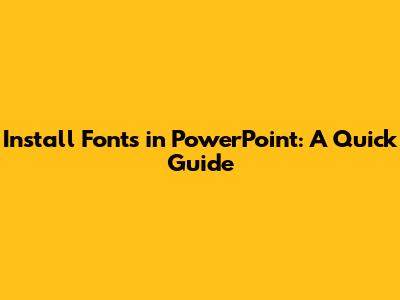
Hey guys! Ever felt like your PowerPoint presentations are missing that special something? Maybe it's the fonts! Using the same old fonts can make your slides look a bit bland. But don't worry, adding new fonts to PowerPoint is easier than you might think. This guide will walk you through everything you need to know to install fonts and make your presentations pop! Whether you're aiming for a sleek, professional look or a fun, creative vibe, the right fonts can make all the difference. Let's dive in and explore how to get those cool new fonts into your PowerPoint arsenal. Trust me, once you start experimenting with different typefaces, you'll wonder how you ever managed without them!
Why Install New Fonts in PowerPoint?
So, why bother installing new fonts in PowerPoint anyway? Well, think of fonts as the clothes your words wear. A professional font can add credibility to a business presentation, while a playful font can liven up a classroom slideshow. The default fonts in PowerPoint are fine, but they can be a bit…ordinary. By installing new fonts, you open up a whole world of possibilities. You can match your fonts to your brand, create a unique visual style, and keep your audience engaged. Plus, using different fonts can help you emphasize key points and create a visual hierarchy on your slides. Imagine using a bold, striking font for your headlines and a clean, readable font for your body text. Suddenly, your presentation looks polished and professional. And let's be honest, who doesn't want their presentations to look amazing? Installing new fonts is a simple way to take your presentations from blah to brilliant. You can find fonts that perfectly match the tone and style of your content, whether you're presenting financial data or sharing vacation photos. The right font can make your message more impactful and memorable. So, if you're ready to take your PowerPoint game to the next level, installing new fonts is the way to go!
Finding Fonts
Before you can install new fonts, you need to find them! Luckily, the internet is packed with amazing fonts, both free and paid. A great place to start is Google Fonts. It offers a huge selection of open-source fonts that you can download and use for free. Another popular option is Adobe Fonts, which is included with an Adobe Creative Cloud subscription. Adobe Fonts offers a wide variety of high-quality fonts that are perfect for professional presentations. If you're looking for something a bit more unique, you can check out font marketplaces like Creative Market and MyFonts. These sites offer a wide range of fonts created by independent designers, so you're sure to find something that fits your style. When choosing fonts, think about the overall tone and style of your presentation. Are you going for a clean, modern look? Or something more playful and creative? Consider the readability of the font as well. A fancy, decorative font might look great for a headline, but it might be difficult to read in body text. It's also a good idea to download a few different fonts and experiment with them to see what works best for you. Don't be afraid to try something new and have fun with it! Remember, the right font can make all the difference in how your presentation is received.
Installing Fonts on Windows
Okay, you've found some awesome fonts. Now, let's get them installed on your Windows machine so you can use them in PowerPoint! First, download the font file. Fonts usually come in a ZIP file, so you'll need to extract the files. Right-click on the ZIP file and select "Extract All." Once the files are extracted, you'll see one or more font files. These files usually have a .ttf (TrueType Font) or .otf (OpenType Font) extension. To install the font, simply right-click on the font file and select "Install." Windows will then install the font, and it will be available for use in all your applications, including PowerPoint. Alternatively, you can open the font file and click the "Install" button at the top of the window. If you want to install multiple fonts at once, you can select all the font files, right-click, and select "Install." Just be patient, as it might take a few moments for Windows to install all the fonts. Once the fonts are installed, you might need to restart PowerPoint for them to appear in the font list. And that's it! You've successfully installed new fonts on your Windows machine. Now you can start using them to create amazing presentations. Remember to choose fonts that are appropriate for your audience and the message you're trying to convey. And don't be afraid to experiment and have fun with different font combinations.
Installing Fonts on macOS
If you're a Mac user, installing fonts is just as easy! First, download the font file. As with Windows, fonts usually come in a ZIP file, so you'll need to extract the files. Double-click on the ZIP file to extract the files. Once the files are extracted, you'll see one or more font files with a .ttf or .otf extension. To install the font, double-click on the font file. This will open the Font Book application. In the Font Book window, click the "Install Font" button at the bottom. macOS will then install the font, and it will be available for use in all your applications, including PowerPoint. Alternatively, you can drag and drop the font file into the Font Book application. If you want to install multiple fonts at once, you can select all the font files and drag them into the Font Book window. Just be patient, as it might take a few moments for macOS to install all the fonts. Once the fonts are installed, you might need to restart PowerPoint for them to appear in the font list. And that's it! You've successfully installed new fonts on your Mac. Now you can start using them to create stunning presentations. Remember to choose fonts that are legible and appropriate for your audience. And don't be afraid to explore different font combinations to find the perfect look for your slides. With a little creativity, you can create presentations that are both visually appealing and highly effective.
Using Your New Fonts in PowerPoint
Alright, you've installed your new fonts, and now it's time to put them to work in PowerPoint! Open up your presentation and select the text you want to change. Then, go to the "Home" tab and look for the font dropdown menu. Click on the dropdown menu, and you should see your newly installed fonts listed along with the default fonts. Simply select the font you want to use, and the text will change to that font. It's that easy! You can also use the font size, font color, and other formatting options to further customize your text. Experiment with different font combinations to see what looks best. Try using a bold font for your headings and a clean, readable font for your body text. You can also use different fonts to emphasize key points and create a visual hierarchy on your slides. Remember to keep your fonts consistent throughout your presentation. Using too many different fonts can make your slides look cluttered and unprofessional. It's also important to choose fonts that are appropriate for your audience and the message you're trying to convey. A playful font might be great for a children's presentation, but it might not be suitable for a business presentation. With a little practice, you'll be able to master the art of font selection and create presentations that are both visually appealing and highly effective.
Troubleshooting Font Issues
Sometimes, things don't go quite as planned. Here are a few common issues you might encounter when installing and using fonts in PowerPoint, and how to fix them. First, if you don't see the font in the font list, make sure you've restarted PowerPoint after installing the font. Sometimes, PowerPoint needs to be restarted to recognize the new fonts. If that doesn't work, try restarting your computer. In rare cases, the font file might be corrupted. Try downloading the font again from a different source. If you're still having trouble, try installing the font in a different application, like Microsoft Word, to see if it works there. If the font works in other applications but not in PowerPoint, there might be a compatibility issue. Try updating PowerPoint to the latest version. Another common issue is fonts not displaying correctly in your presentation. This can happen if the font is not embedded in the presentation file. To embed the font, go to "File" > "Options" > "Save" and check the box that says "Embed fonts in the file." This will ensure that the font displays correctly even if the presentation is opened on a computer that doesn't have the font installed. However, embedding fonts can increase the file size of your presentation. So, only embed the fonts if necessary. By following these troubleshooting tips, you can usually resolve any font issues you encounter. And if you're still stuck, don't hesitate to search online for solutions or ask for help from a tech-savvy friend.
So there you have it! Installing and using new fonts in PowerPoint is a breeze once you know the steps. By adding a personal touch with unique fonts, you can significantly enhance the visual appeal and impact of your presentations. Whether you're a student, a professional, or just someone who loves creating slideshows, experimenting with different fonts can take your presentations to the next level. Remember to choose fonts that are appropriate for your audience and the message you're trying to convey. And don't be afraid to experiment and have fun with different font combinations. With a little creativity, you can create presentations that are both visually stunning and highly effective. So go ahead, download some new fonts, and start creating amazing presentations today! Your audience will thank you for it. And who knows, you might even inspire others to up their PowerPoint game as well. Happy presenting, folks! And remember, the right font can make all the difference in the world. So choose wisely and have fun!